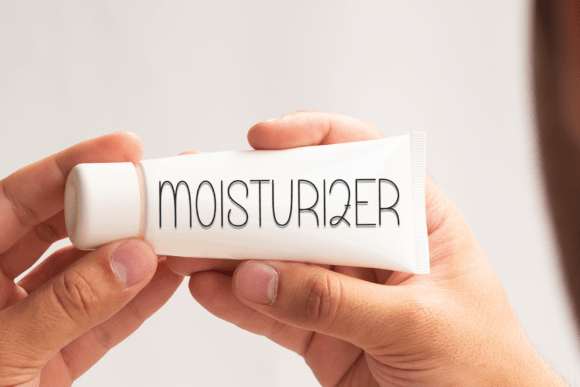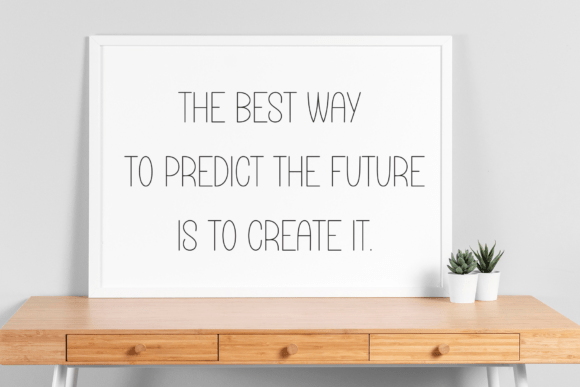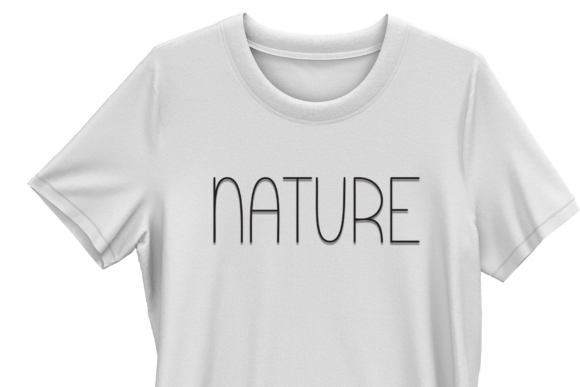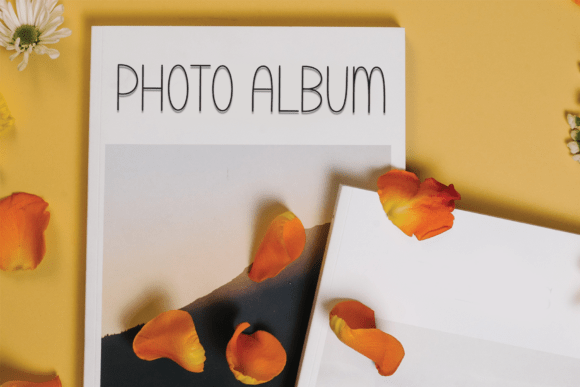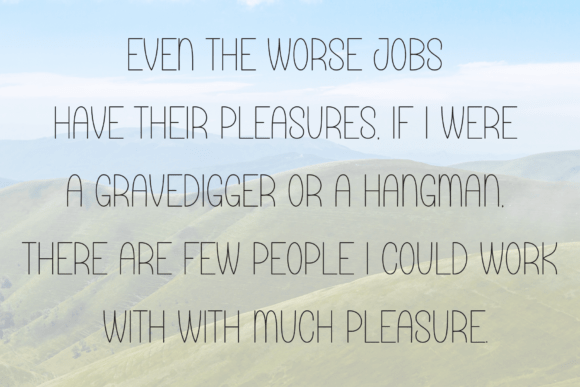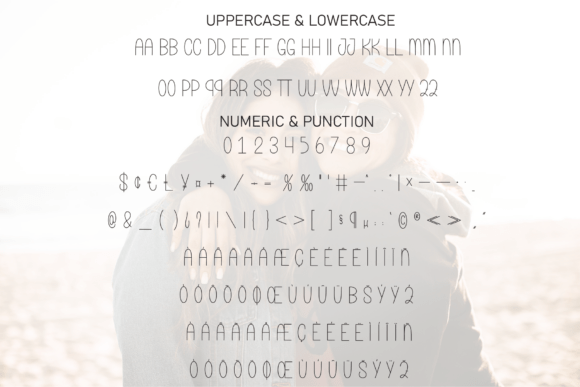
The Ultimate Friend: Uncovering the Charm of Best Friend Font
I’ll never forget the time I was working on a branding project for a new coffee shop. My client wanted a font that was friendly, approachable, and would appeal to a wide audience. I spent hours scouring through font libraries, but nothing seemed quite right. That was until I stumbled upon Best Friend Font. ✨ It was love at first sight! The clean lines, relaxed structure, and fresh vibe instantly won me over. In this article, I’ll share my experience with Best Friend Font, its features, and how to make the most of it in your designs.
- ✅ Fresh and friendly vibe that’s perfect for a wide range of projects
- ✨ Clean lines and relaxed structure for a polished appearance
- 💡 Approachable design that adds charm and clarity to projects
- 📦 Perfect for packaging, posters, and social media graphics
While Best Friend Font is an excellent choice for many projects, there are a few things to keep in mind: ⚠️
- 🤔 Limited character set: Best Friend Font might not have all the characters or glyphs you need for a specific project
- ⚠️ Not suitable for body text: Due to its display nature, Best Friend Font might not be the best choice for long blocks of text
A Practical Guide: Using Best Friend Font in Your Designs
- Experiment with OpenType features, such as stylistic alternates, to add visual interest
Exploring Alternatives: Similar Fonts to Best Friend
The Story Behind Best Friend Font
Best Friend Font was designed with the intention of creating a friendly, approachable typeface that would bring a touch of warmth to any project. The designer aimed to craft a font that would be perfect for everyday use, from social media graphics to packaging and posters. With its clean lines and relaxed structure, Best Friend Font has become a go-to choice for designers looking for a fresh, modern look.
Q: What is the best use for Best Friend Font?
A: Best Friend Font is perfect for display purposes, such as packaging, posters, and social media graphics. It’s not recommended for body text or long-form content.
Q: Is Best Friend Font available in different weights or styles?
A: Currently, Best Friend Font is available in a single weight. However, the designer may release additional weights or styles in the future.